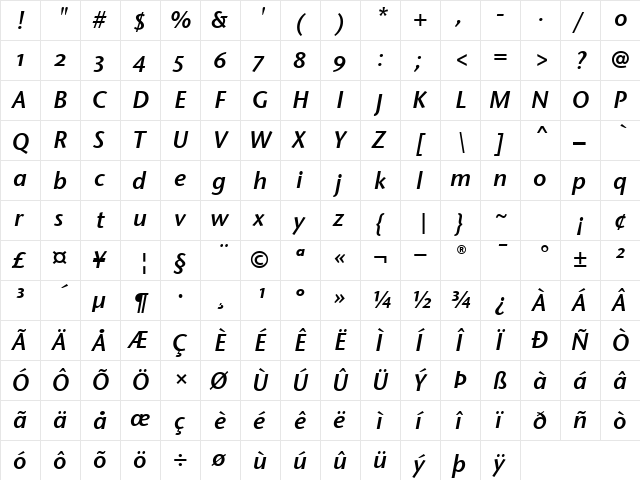
Stone Sans Sem OS ITCTT SemiIta
Design Context for Stone Sans Sem OS ITCTT Typeface
Stone Sans Sem OS ITCTT takes a measured approach to typography — its balanced proportions and neutral character make it a reliable workhorse for both digital and print work.